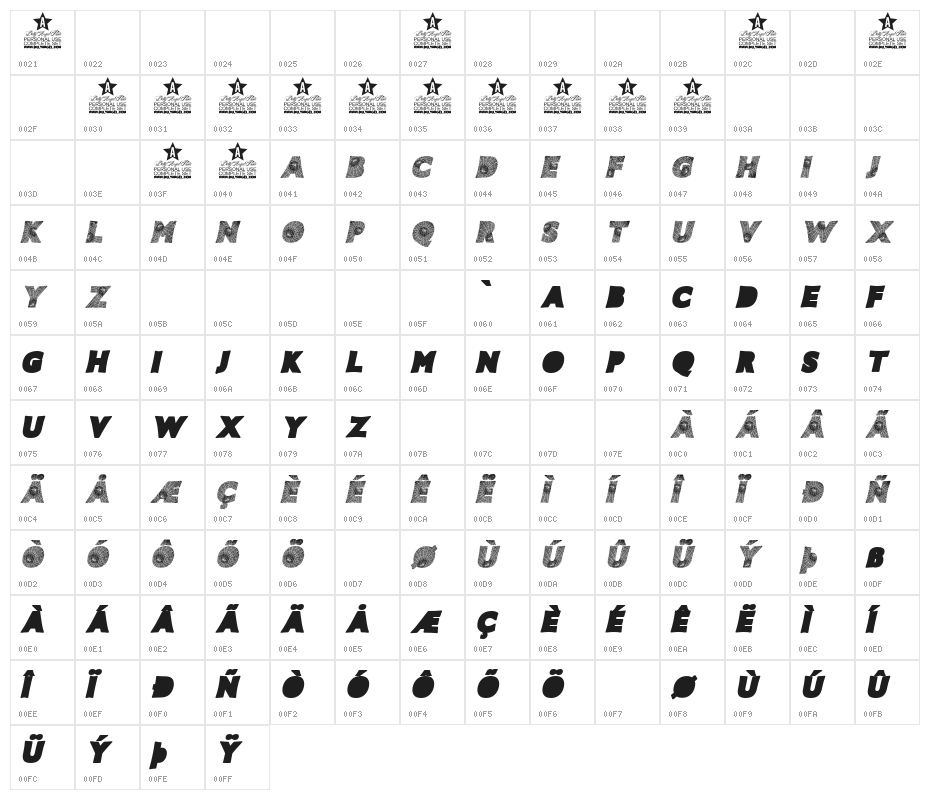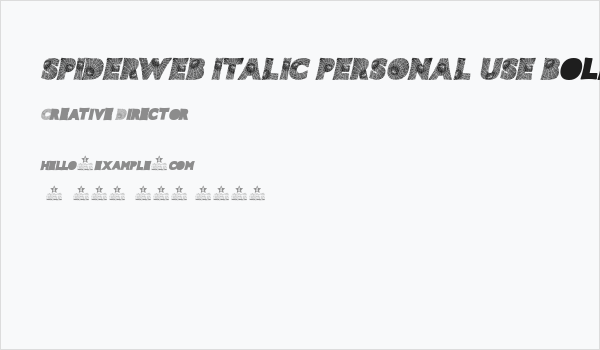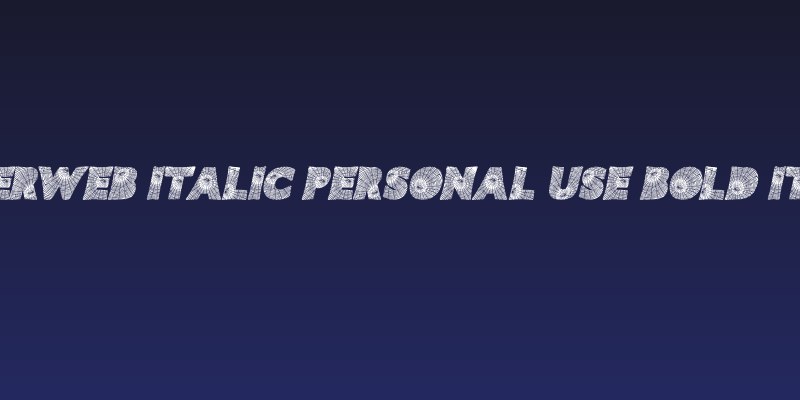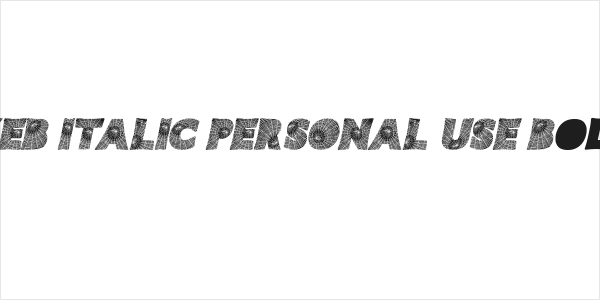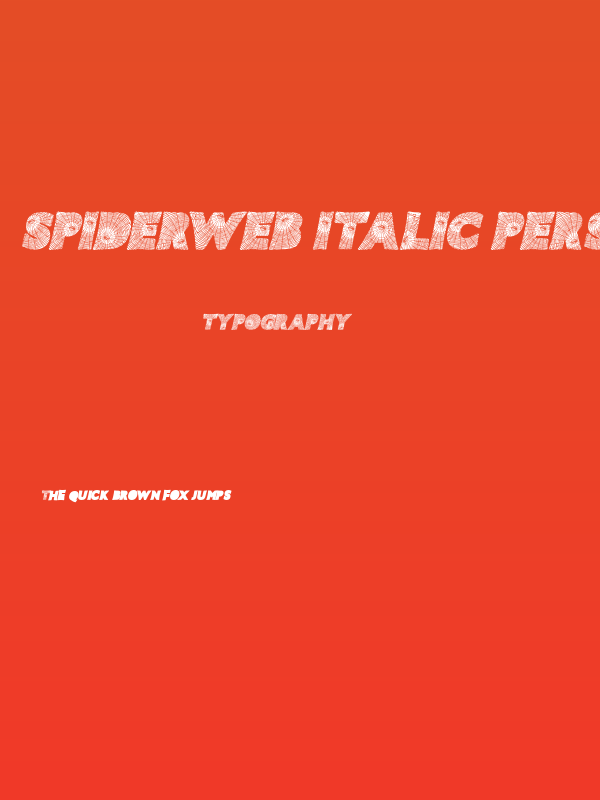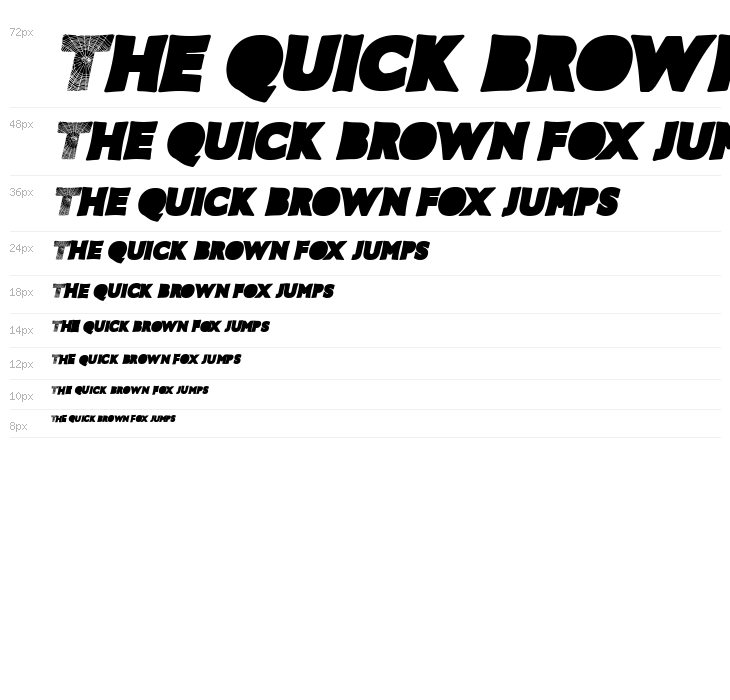
SPIDERWEB ITALIC PERSONAL USE Bold Italic Font
SPIDERWEB ITALIC PERSONAL USE Bold Italic Description
This font features a unique and eye-catching design with a spiderweb pattern integrated into the characters, giving it a distinct and decorative appearance. The uppercase letters are bold and italicized, creating a dynamic and energetic feel. The intricate web detailing adds a layer of complexity and visual interest, making it suitable for creative and themed projects. The font is designed for personal use, emphasizing its artistic and playful nature. Its boldness and italic style contribute to a strong presence, making it ideal for standout headlines or titles.
| Proposed Projects | Ideal for Halloween-themed designs, posters, event invitations, and creative branding projects. |